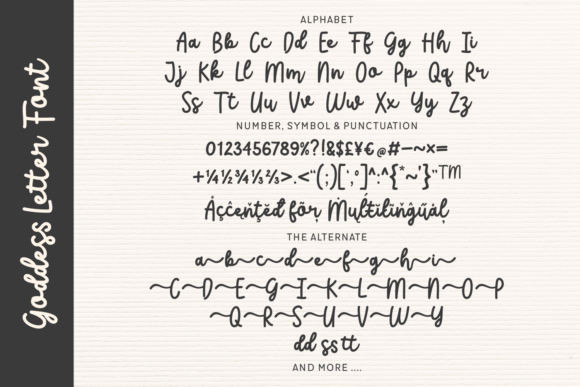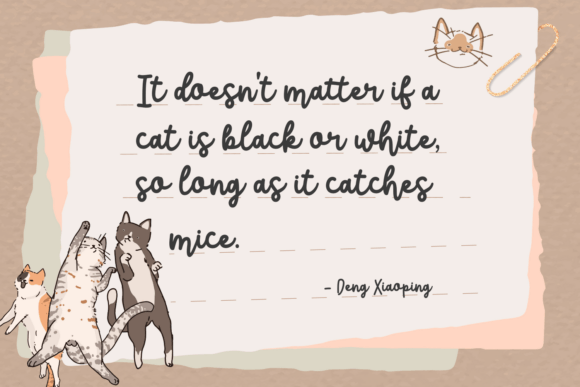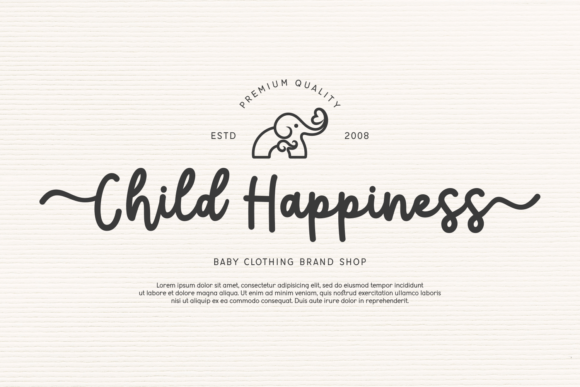
Introduction to Goddess Letter Font
Goddess Letter: A bold and beautiful script that feels powerful and divine.
It combines strong, flowing letters with elegant curves, making it perfect for titles and designs that need a touch of grace and strength Ideal for anything that celebrates femininity and empowerment.